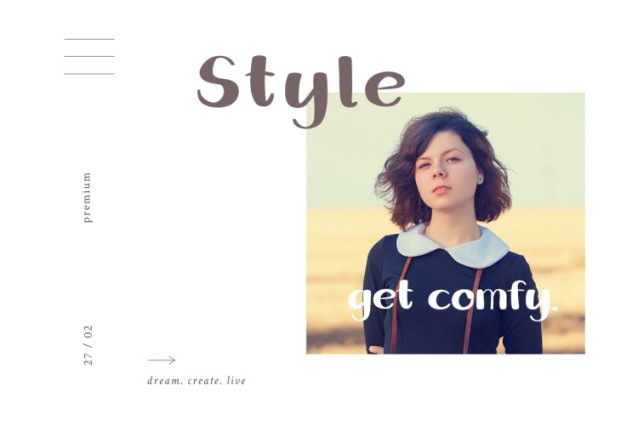
Sunday Vibe Font
Sunday Vibe Font is a charming and stylish typeface. It perfectly balances modern elegance with playful femininity. Designed with smooth, rounded strokes and a natural handwritten feel, this typeface brings warmth and personality to any project. Whether you’re crafting branding materials, social media graphics, or invitations, Sunday Vibe ensures your text stands out with a unique yet approachable charm.
Furthermore, the organic flow of each letter mimics the effortless grace of casual handwriting. It is ideal for projects that need a personal and intimate touch. The slightly bold strokes give it a strong presence, while soft edges add a welcoming and friendly vibe. Moreover, Sunday Vibe blends seamlessly with various design styles, from contemporary minimalism to rustic bohemian aesthetics.
With well-balanced letterforms and stylish curves, Sunday Vibe conveys messages with sophistication and warmth. In addition, this font enhances readability without sacrificing artistic appeal. It is a go-to choice for designers looking to add an elegant yet casual tone.